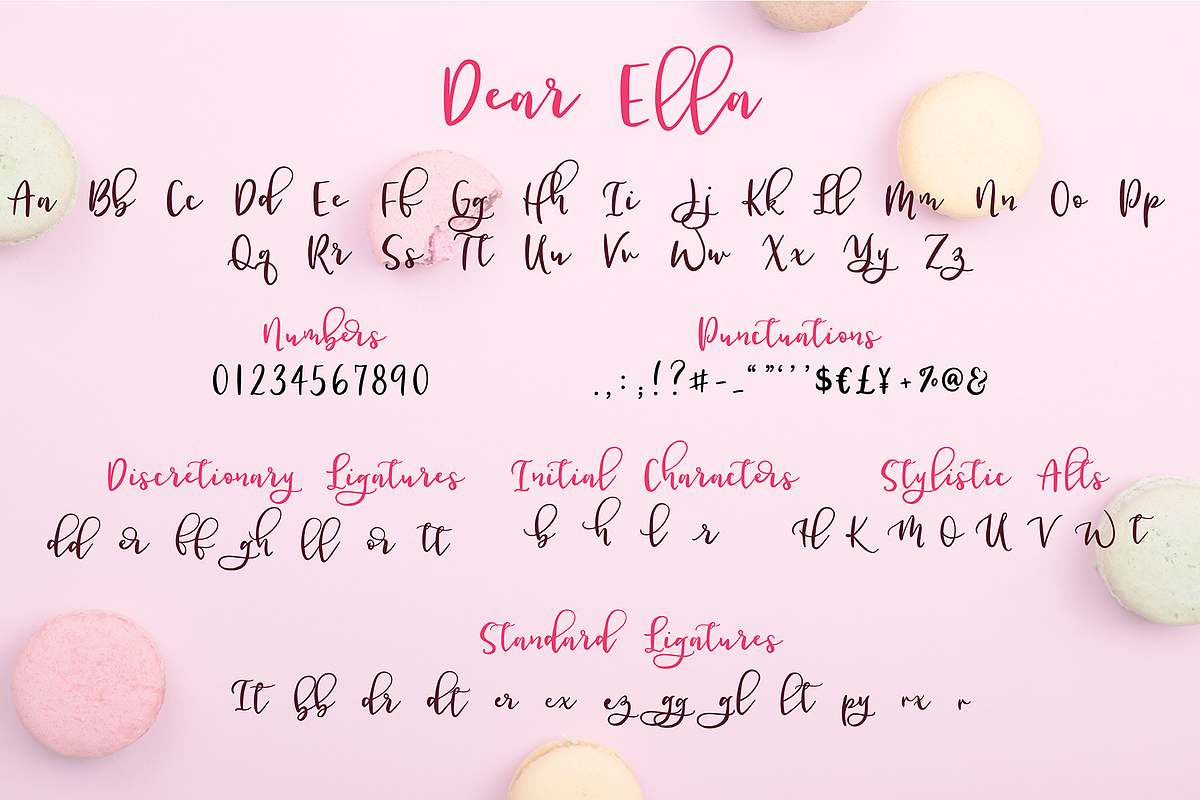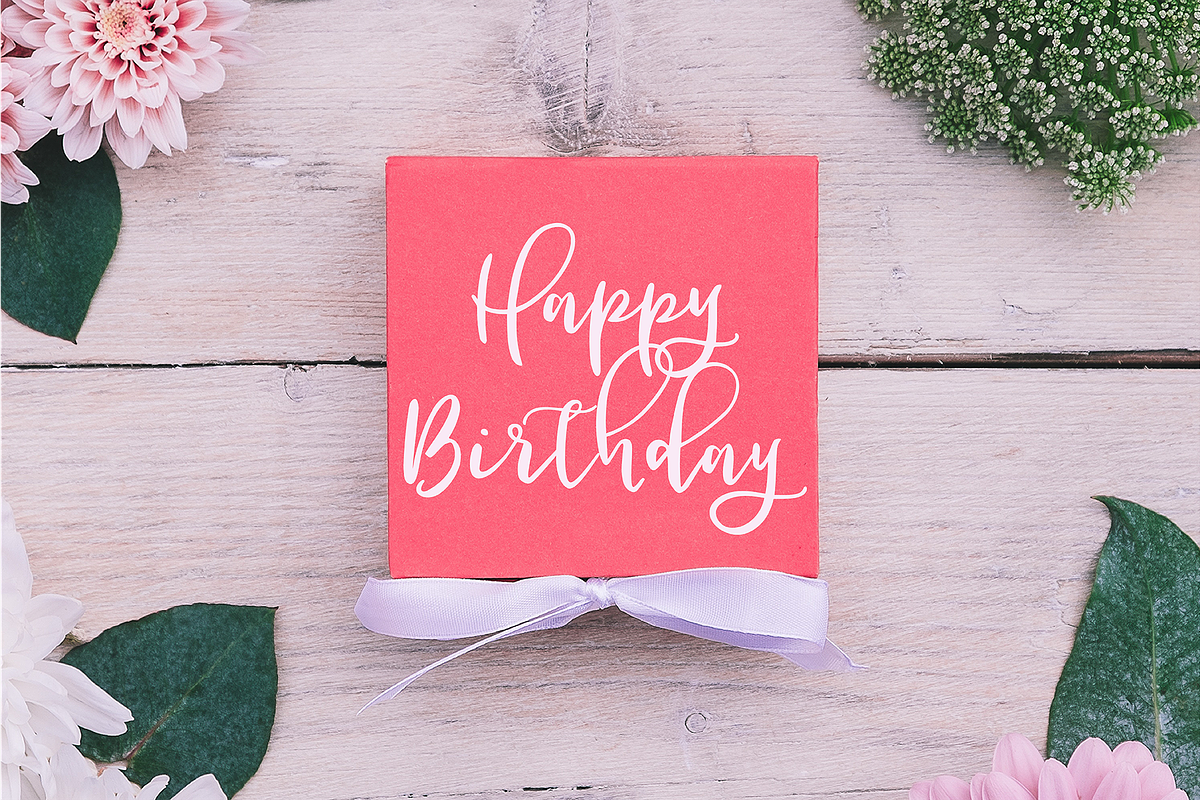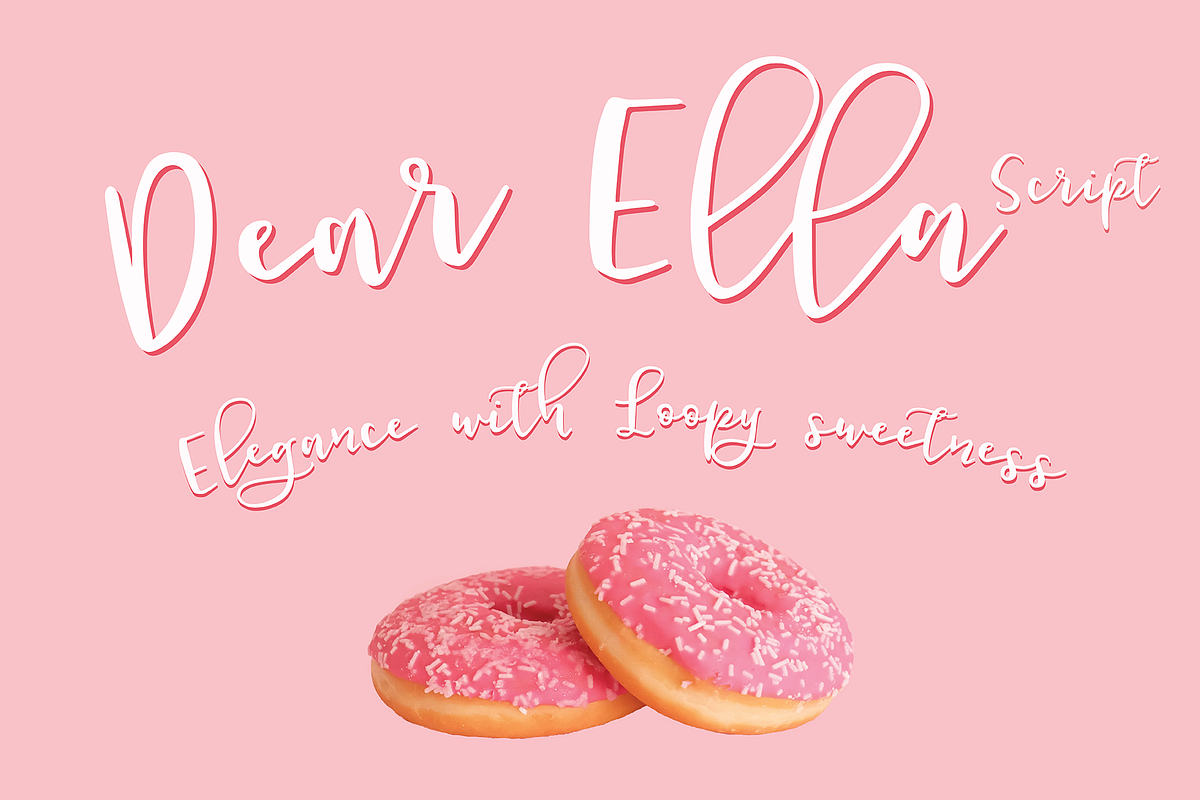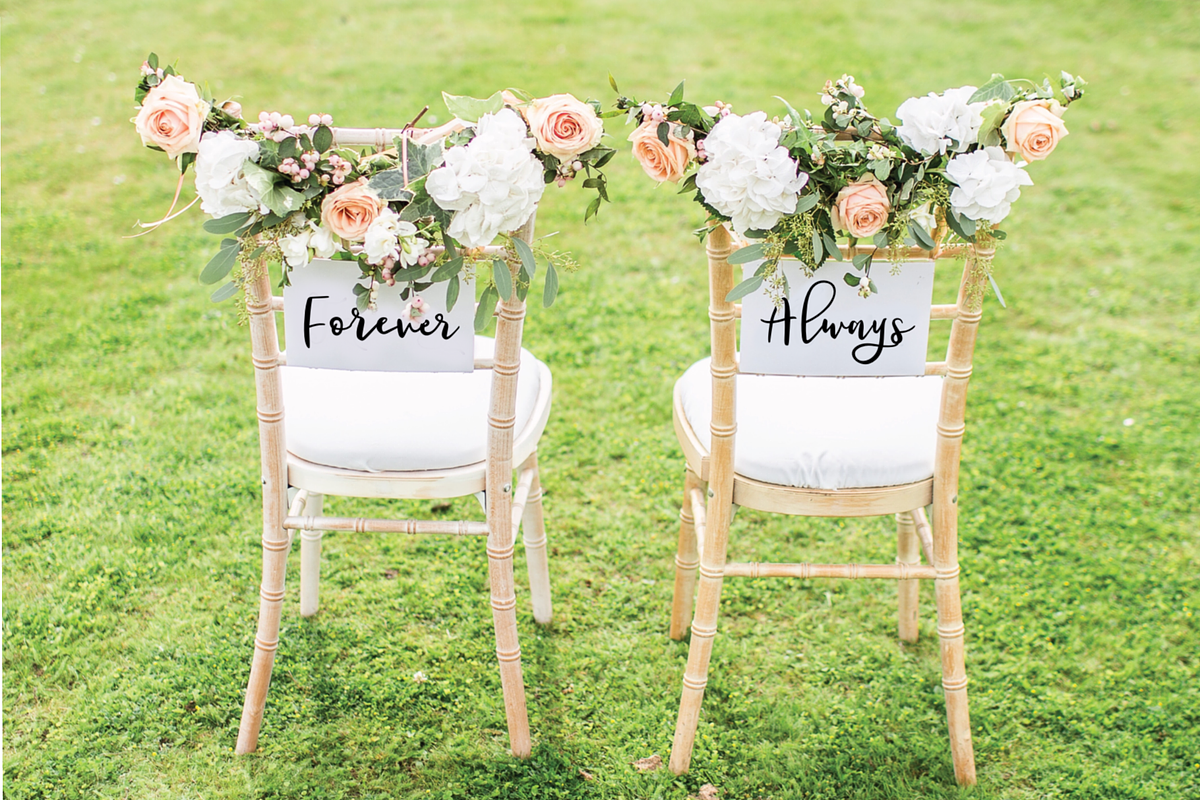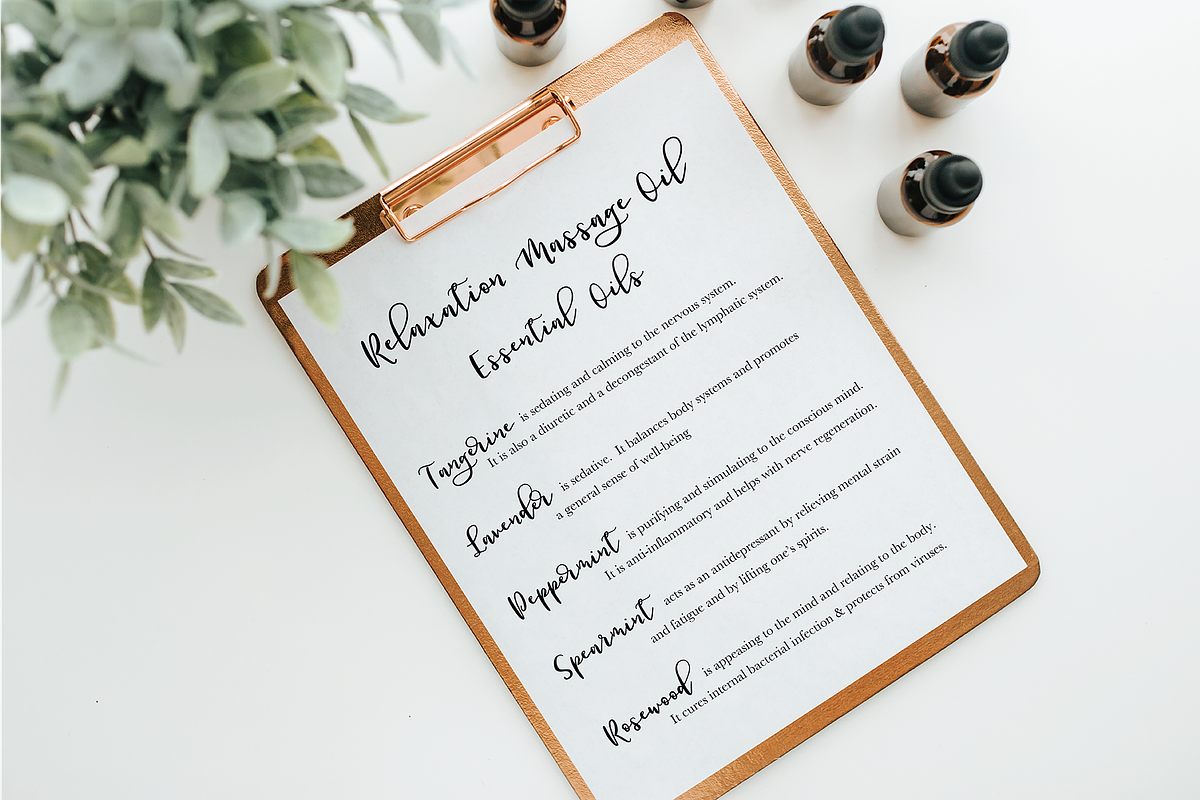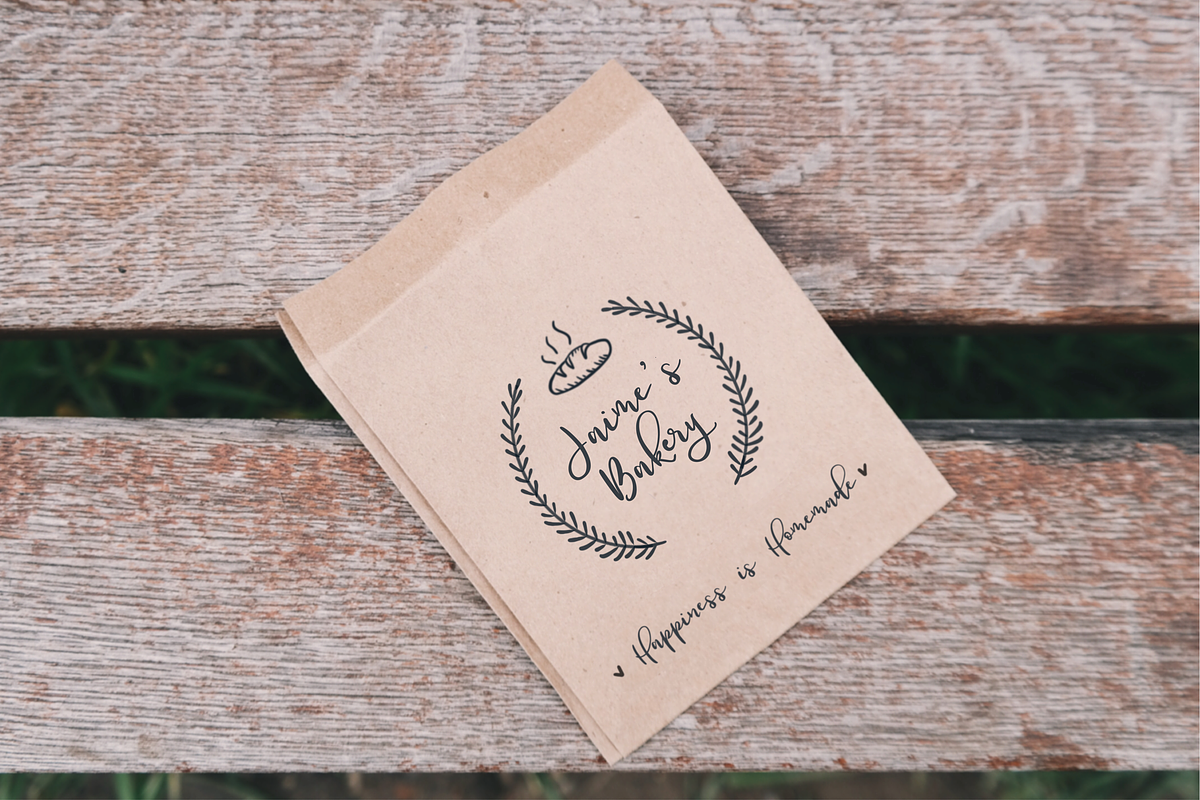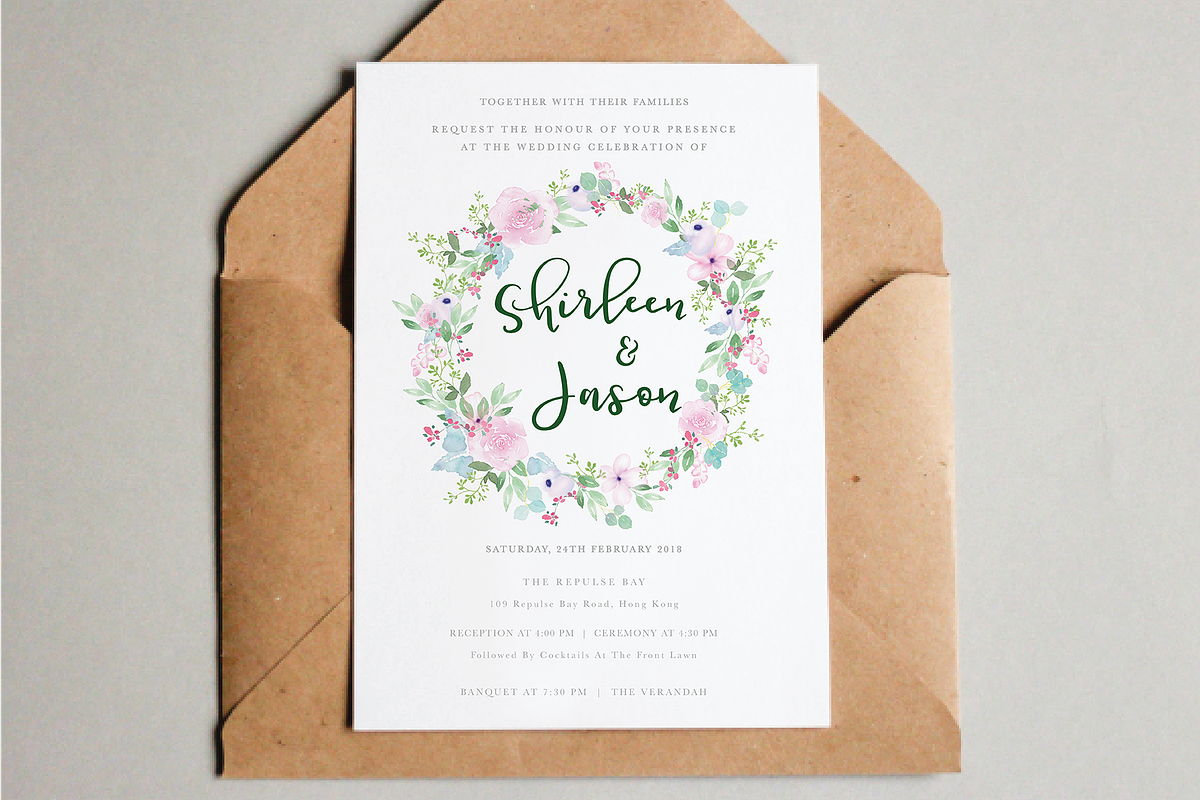
Dear Ella Script - Duo font
Dear Ella Script - Elegance with Loopy Sweetness
"Dear Ella Script" is a handwritten script font that is perfect for:
Party and Event planning
Invitations, Greeting cards, prints, menu and magazine layouts
Branding, social media, packaging and more
Dear Ella Script comes in Standard and Bold functions and it has a variety of unique, coded features to create compelling, handmade outcomes: 8 stylistic alternates, 7 discretionary ligatures, 4 initial characters and 13 standard ligatures. Make sure to use the OTF version of the font to be able to access all features. The font comes with a downloadable TTF version as well in case you need it.